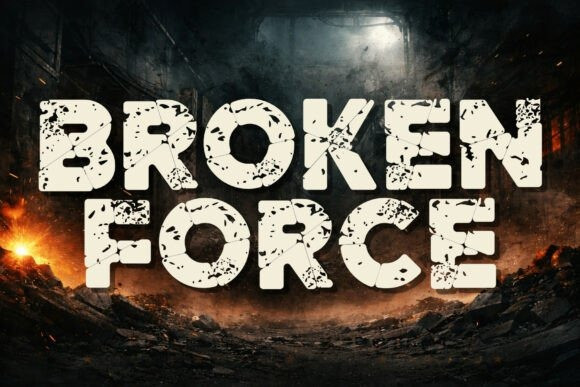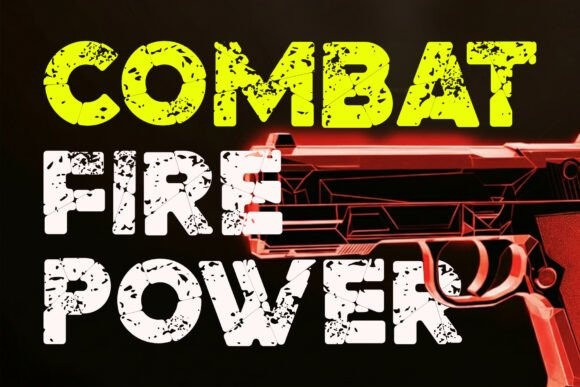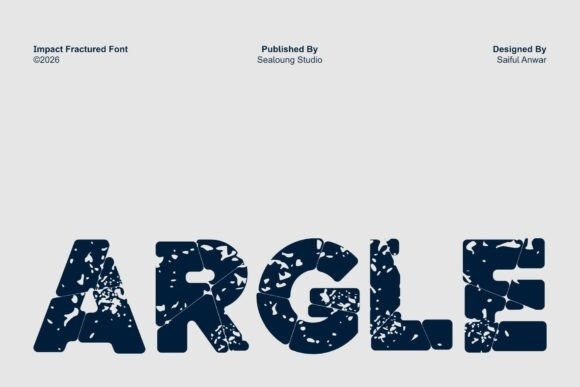
Argle Font
Argle Font is a bold distressed display font featuring cracked, broken textures that deliver a strong, rugged, and industrial character. Designed with thick letterforms and rough fractures, this font brings power and attitude to any design that needs impact and visual strength.
Perfect for posters, headlines, logos, album covers, apparel designs, game titles, and branding projects, Argle Fracture stands out with its bold presence and raw aesthetic. The distressed details give a worn, fractured look that works especially well for themes such as industrial, grunge, street, survival, action, and cinematic visuals.
This font is crafted to remain highly legible while maintaining an aggressive and textured appearance, making it suitable for both digital and print use.